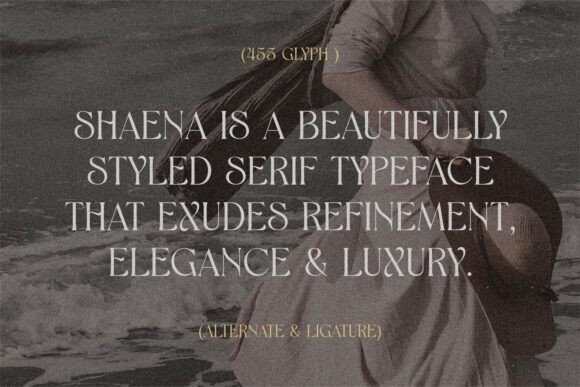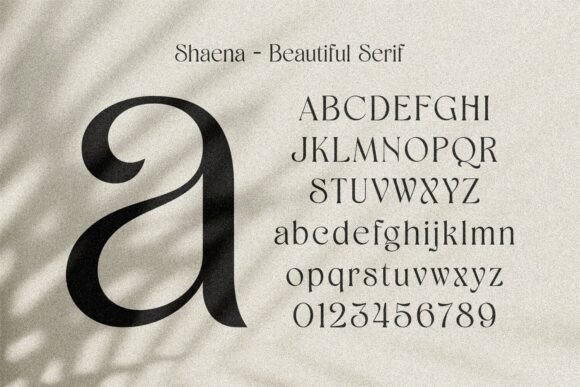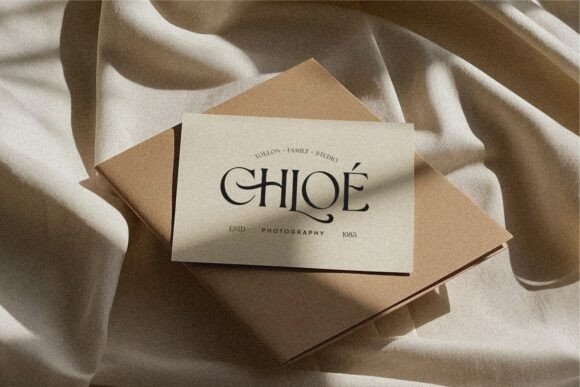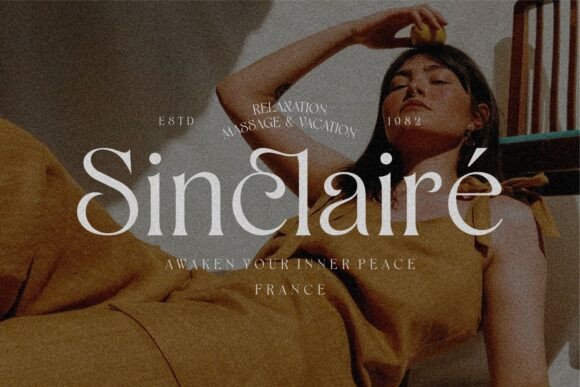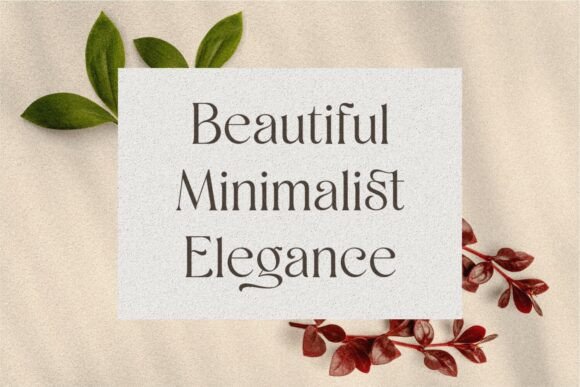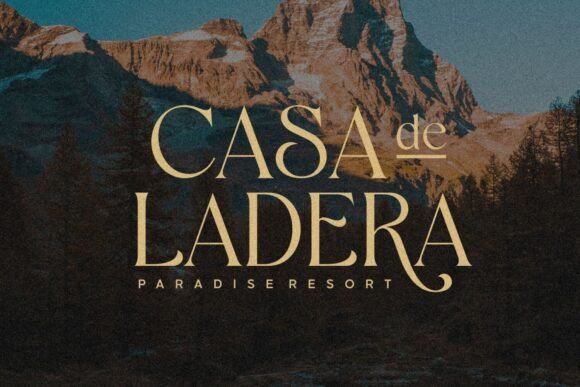
Introduction to Shaena Font
Have you ever been working on a creative project and stumbled upon that one perfect font that elevates your entire design? It’s a moment of pure magic, and it’s exactly what happens when you come across the Shaena Font. This beautifully styled serif typeface exudes refinement, elegance, and luxury, making it the perfect addition to any high-end design.
As a valuable resource for designers, the Shaena Font is a game-changer. With its organic curves and sharp serifs, it’s suitable for a wide range of applications, from unique logos and branding to fashion designs, weddings, and poster designs. Whether you’re working on a free download or a high-quality design, the Shaena Font is sure to impress.
With a transparent background and a sophisticated look, the Shaena Font is the perfect choice for designers who want to add a touch of luxury to their creative project.
Key Features of Shaena Font
- Features a unique, stylish design that adds a touch of elegance to any project
Honest Review: Shaena Font
As a designer, I’m always on the lookout for high-quality design resources to enhance my creative projects. The Shaena Font is one of the fonts that caught my attention, and I’d like to share my honest review with you.
What works well with the Shaena Font is its elegant and modern design. It’s perfect for creating a sophisticated and professional look in your projects, whether it’s a logo, brochure, or website. The font is available for free download, which is a major plus. I also appreciate the fact that it comes with a transparent background, making it easy to customize and combine with other design elements.
- ✨ Elegant and modern design
- ✨ High-quality font
However, I do have a few limitations to mention. The Shaena Font may not be the best choice for projects that require a bold or playful look. Additionally, the font may not be as versatile as some other fonts on the market.
Overall, I’m impressed with the Shaena Font. It’s a great addition to any designer’s toolkit, and I would recommend it for projects that require a sophisticated and professional look.
- ⚠️ Limited versatility
- ⚠️ Not suitable for bold or playful projects
Shaena Font
The Shaena Font is a versatile and stylish design resource ideal for creative projects. Its transparent background and high-quality design make it a great choice for various applications.
Tips for Getting the Most Out of Shaena Font
To get the most out of the Shaena Font, experiment with different font sizes, colors, and combinations to create unique and eye-catching designs. You can also use the font in conjunction with other design elements, such as images or graphics, to add depth and interest to your projects.
The Shaena Font is ideal for a variety of creative projects, including invitations, brochures, posters, and social media graphics. Its elegant and sophisticated design makes it a great choice for formal or professional projects, while its versatility also makes it suitable for more casual or creative applications.